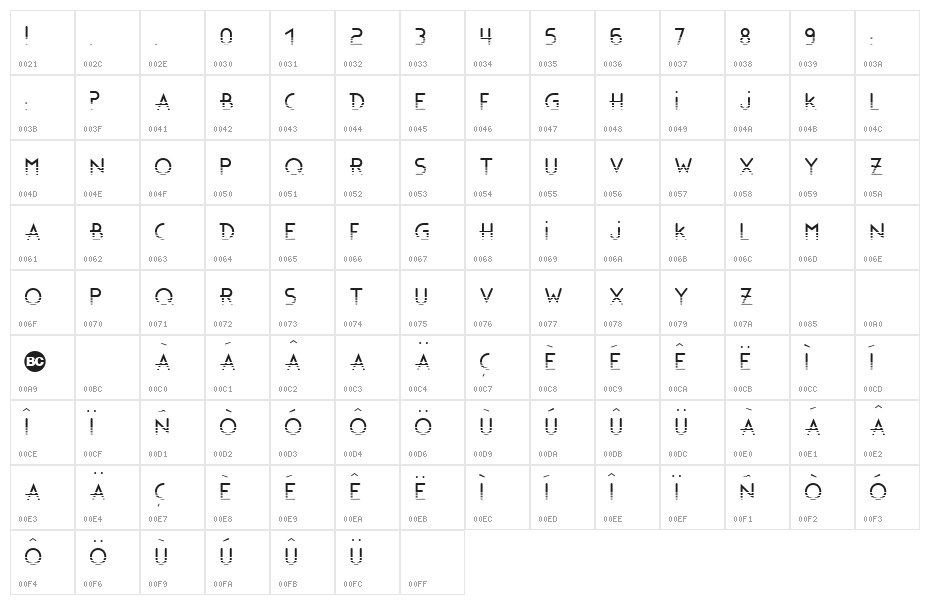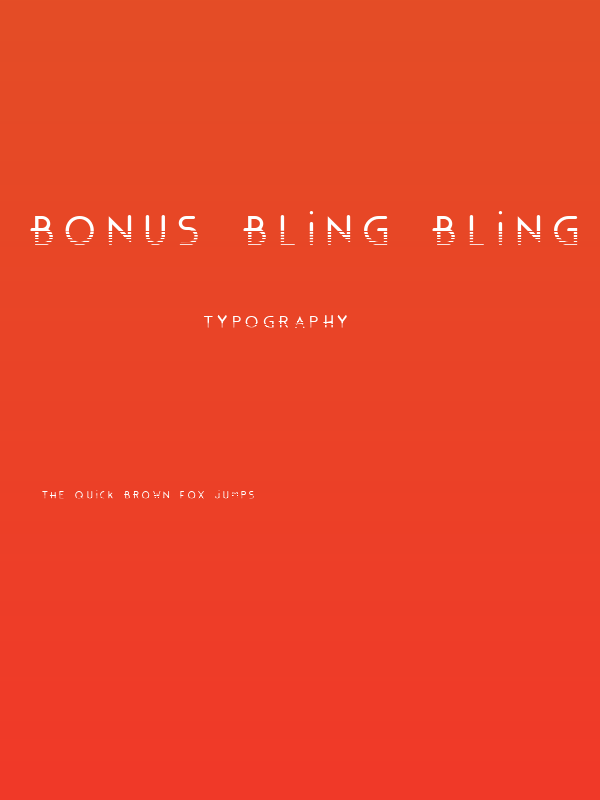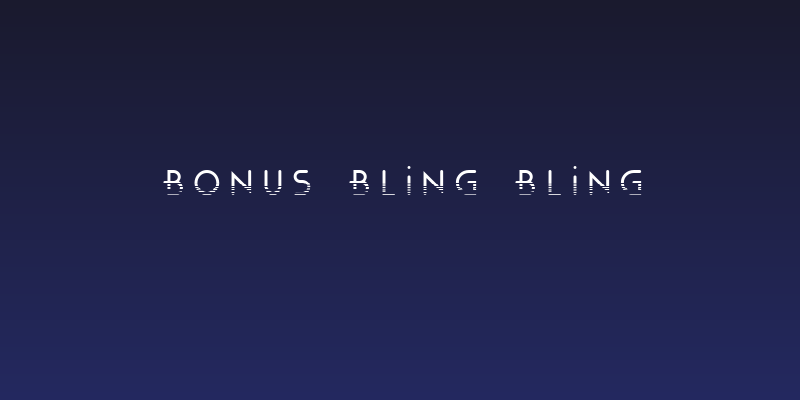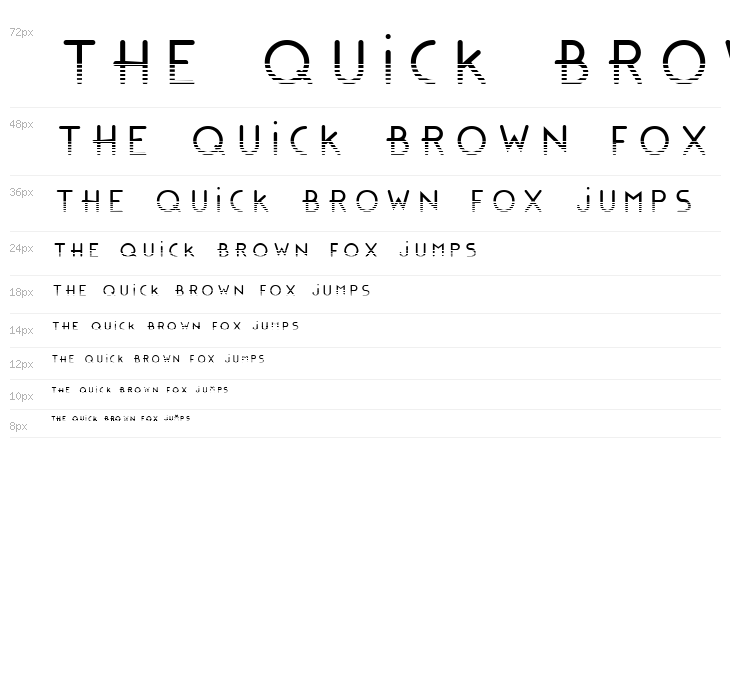
Bonus Bling Bling Font
Bonus Bling Bling Description
This font features a unique, modern design with a distinct horizontal line pattern running through each character, creating a dynamic and eye-catching effect. The uppercase and lowercase letters maintain a consistent style, with clean, geometric shapes and a futuristic aesthetic. The numbers and special characters follow the same design principles, ensuring a cohesive look across all elements. The font's innovative use of lines adds a sense of movement and energy, making it ideal for projects that require a bold and contemporary touch.
| Proposed Projects | Ideal for digital media, tech branding, futuristic posters, and innovative product packaging. |